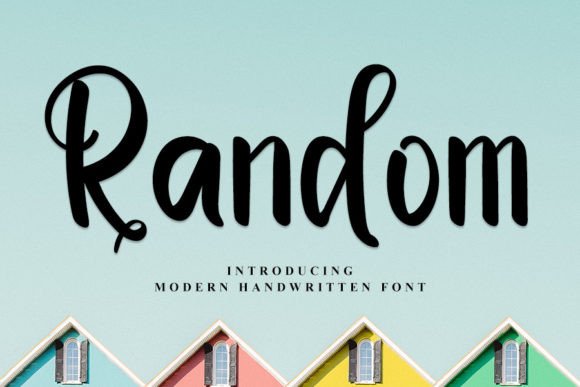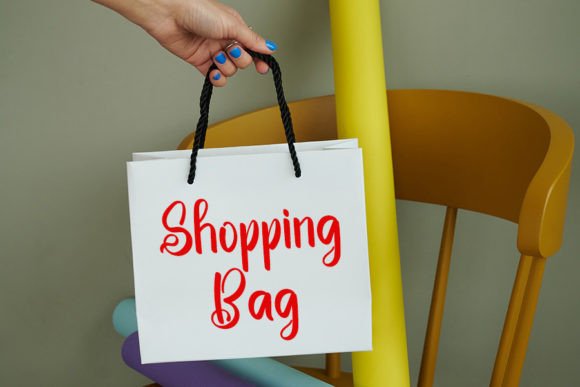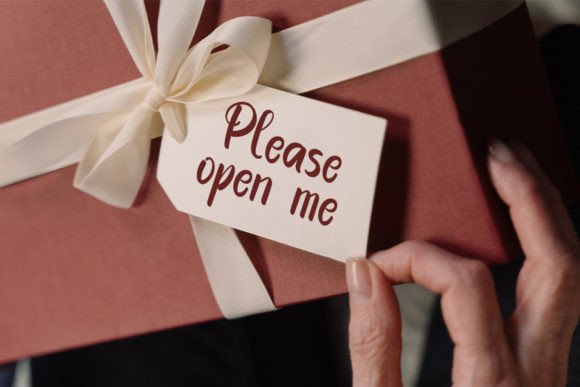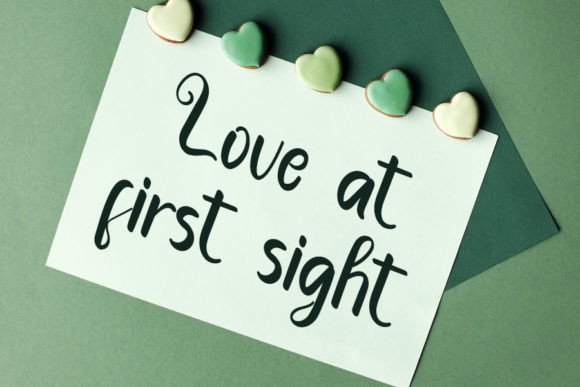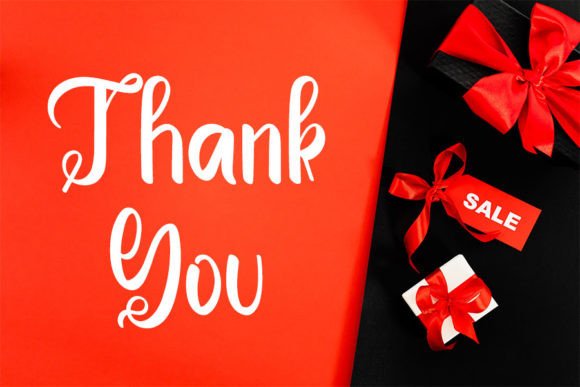
Random Font
About Random Font
Random font is a beautifully crafted handwritten typeface that brings a touch of elegance and charm to your creative work. Its neat design and timeless style make it an excellent choice for a wide range of projects, from logos and invitations to social media graphics and branding.
Distinct and Elegant Style
With its clean, flowing strokes, Random font delivers a distinctive look that is both elegant and approachable. This handwritten font offers a perfect balance between sophistication and casual charm, making your designs stand out with a personal touch.
Randomfont is ideal for wedding invitations, thank you cards, and greeting cards. Its elegant appearance helps convey warmth and sincerity, adding a memorable quality to your special occasion designs.
Great for Branding and Social Media
This font enhances branding materials by adding a unique, handcrafted feel. It works beautifully on logos, product packaging items. Additionally, Random font is perfect for social media posts and banners, helping your content capture attention with style.
Versatile for Various Creative Uses
Randomfont’s versatility allows it to fit seamlessly in different design contexts. Whether you’re working on posters, photography quotes, or merchandise, this font adds an elegant handwritten touch that elevates your creations.
Why Choose Random Font?
Randomfont combines timeless elegance with a neat, look, making it a valuable tool for designers. Its flexibility and charm make it ideal for any project where a stylish and personal touch is needed.